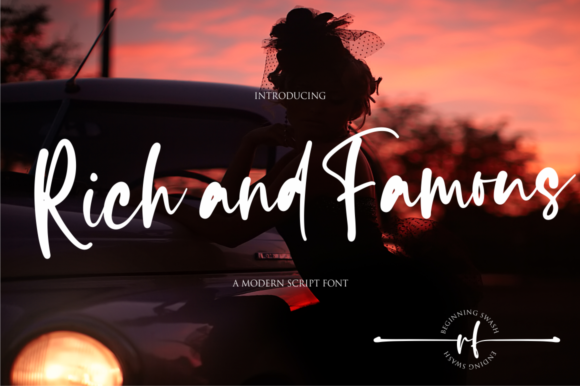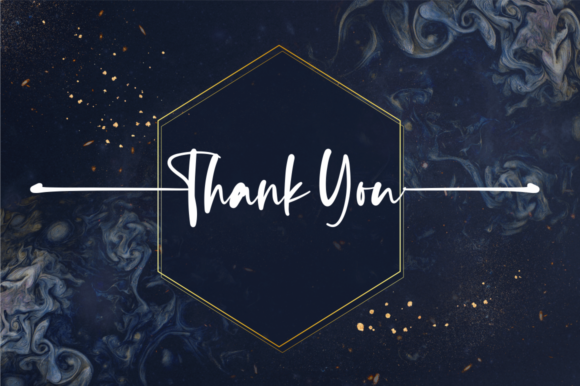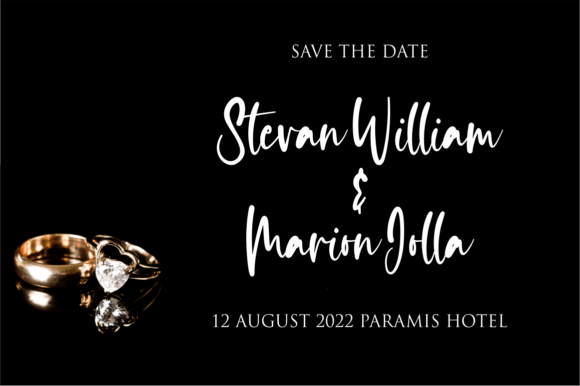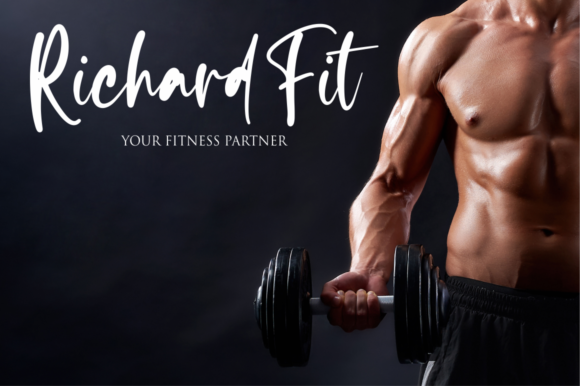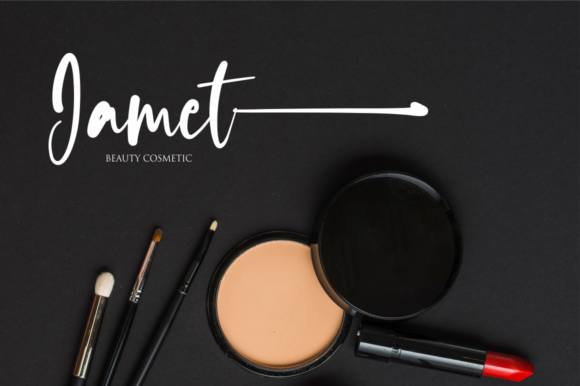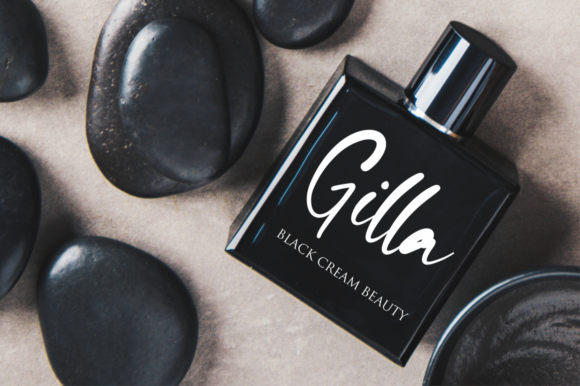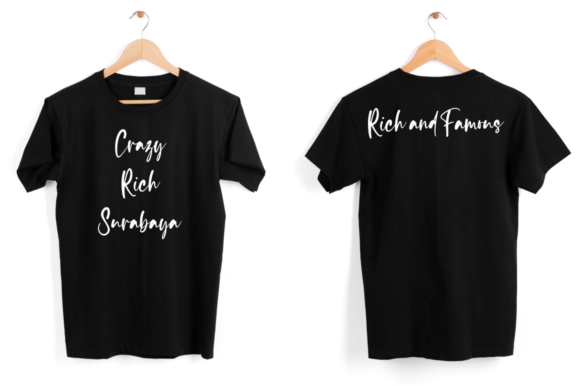
Rich and Famous Font
About Rich and Famous Font
Rich and Famous is a lovely and delicate script font that exudes elegance and class. This font was particularly crafted for those who need a beautiful and refreshing look to their designs.